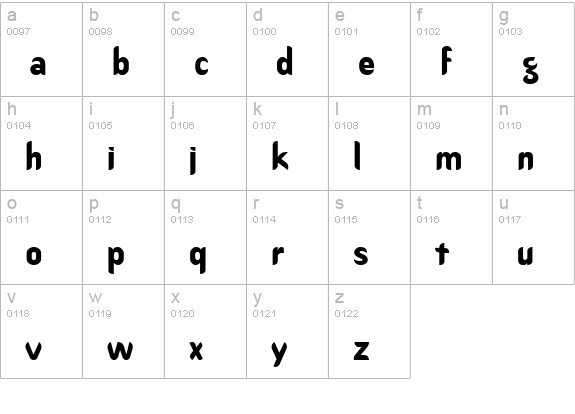
Callimarker Normal Font Details
Callimarker Normal is the standard, neutral variant in the Callimarker typeface family \xE2\x80\x94 well suited to general body text, paragraphs, and standard typographic work.
Callimarker Normal font is a versatile and stylish typeface that brings a touch of elegance to any project. Its clean lines and modern design make it perfect for a wide range of applications, from branding to editorial design. The font features a balance of sleek curves and sharp edges, giving it a unique and contemporary look. Best of all, Callimarker Normal font is completely free to download at FontsMarket.com. Whether you're a designer looking to add a fresh new font to your collection or a business owner seeking to elevate your branding, this font is a fantastic choice. Don't miss out on the opportunity to enhance your projects with this beautiful and free font!